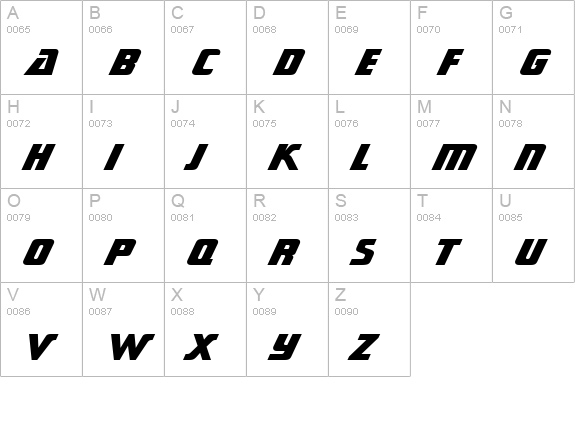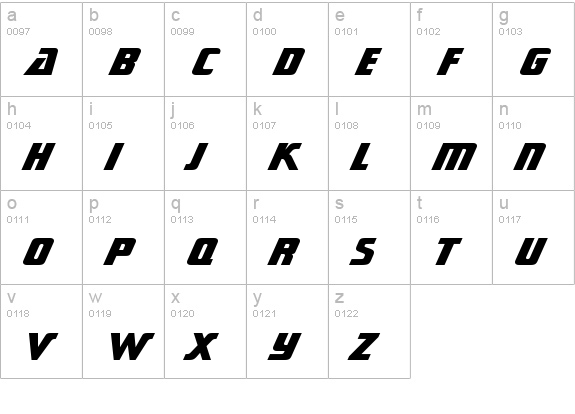
Star Trek Gen Heavy BT Font Details
Star Trek Gen Heavy BT is a heavy, high-impact variant in the Star typeface family \xE2\x80\x94 well suited to high-impact headlines, posters, and display advertising.
Star Trek Gen Heavy BT font is a bold and impactful typeface that captures the essence of the iconic Star Trek franchise. Its strong and commanding presence makes it perfect for headlines, titles, and branding projects that require a futuristic and sci-fi aesthetic. With its sharp edges, sleek lines, and futuristic design elements, Star Trek Gen Heavy BT font evokes a sense of adventure, exploration, and the boundless possibilities of the cosmos. It is a font that embodies the spirit of Star Trek, capturing the essence of its futuristic vision and the boldness of its characters. But what makes Star Trek Gen Heavy BT font even more remarkable is that it is available for free download at FontsMarket.com. Yes, you read it right - this incredible font can be yours without spending a single penny. FontsMarket.com offers a wide range of free fonts, and Star Trek Gen Heavy BT font is one of the highlights of their collection. With its generous availability, anyone can now bring the captivating charm of Star Trek into their design projects without breaking the bank. Whether you're a professional designer, a Star Trek enthusiast, or simply someone who appreciates high-quality fonts, Star Trek Gen Heavy BT font is a must-have addition to your font library. So, don't miss out on this opportunity to enhance your designs with the futuristic flair of Star Trek Gen Heavy BT font. Head over to FontsMarket.com and download it for free today. Let your creativity soar as you boldly go where no designer has gone before with this exceptional font.